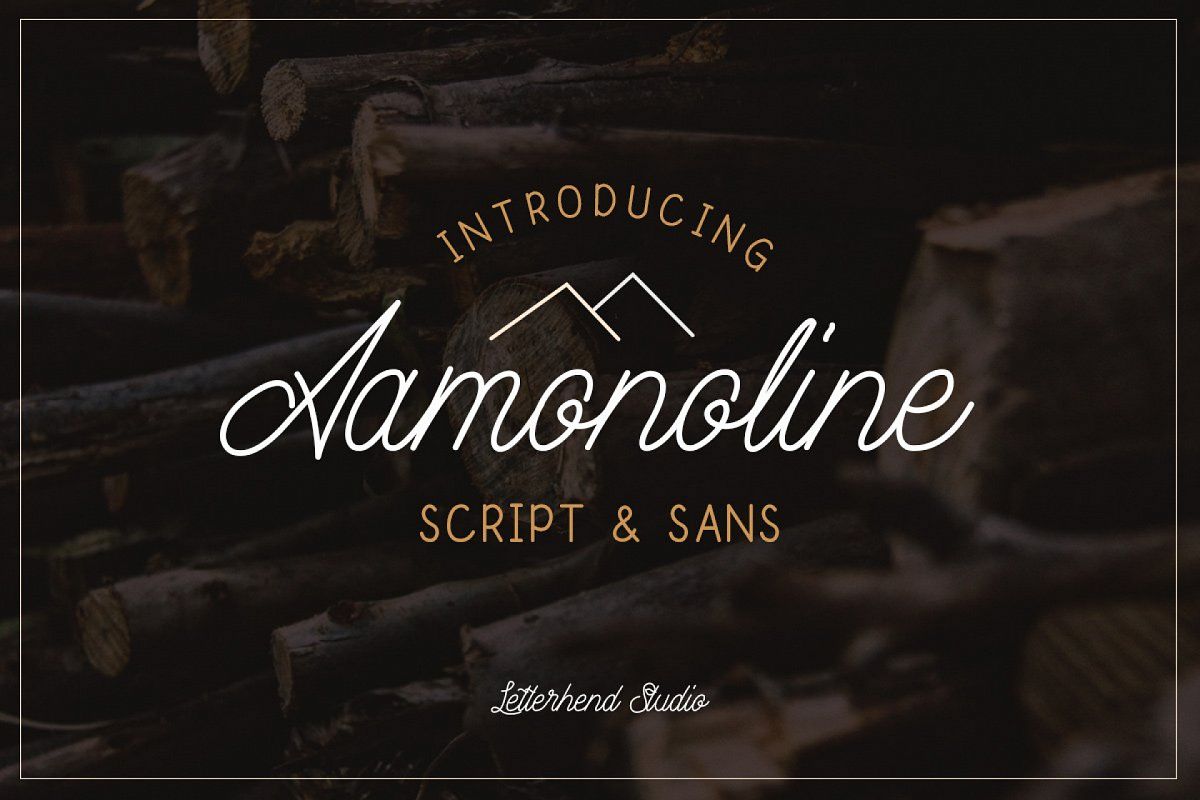
Aamonoline
• to be used as logos, badges and labels. It has many opentype features such as ligature, stylistic alternate, contextual alternatives, swash, etc.